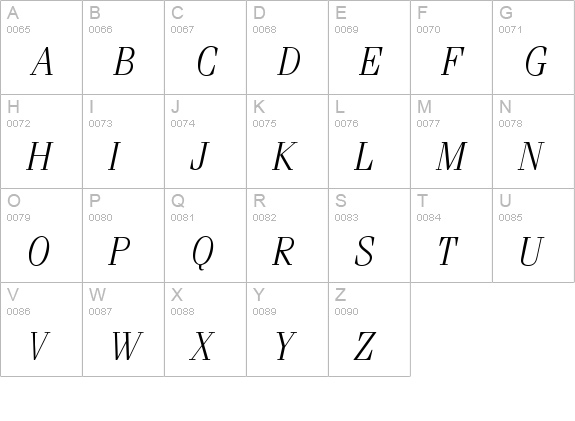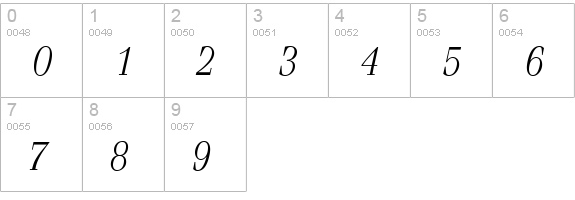
Fenice* Light Italic Font Details
Fenice* Light Italic is a refined, elegant, italic variant in the Fenice* typeface family \xE2\x80\x94 well suited to elegant body text, refined sub-headings, and luxury branding.
Fenice Light Italic font is a beautifully crafted typeface that exudes elegance and sophistication. Its delicate and graceful letterforms make it perfect for adding a touch of finesse to any design project. The slender and slanted characters of the Light Italic style bring a sense of modernity and style to your typography. What makes Fenice Light Italic font even more appealing is that it is available for free download at FontsMarket.com. This means you can easily access this stunning font and use it in your projects without any cost. Whether you're designing a wedding invitation, a branding project, or a website, Fenice Light Italic font will add a touch of class and refinement to your work. Download Fenice Light Italic font for free today and elevate your designs with its timeless and sophisticated appeal.